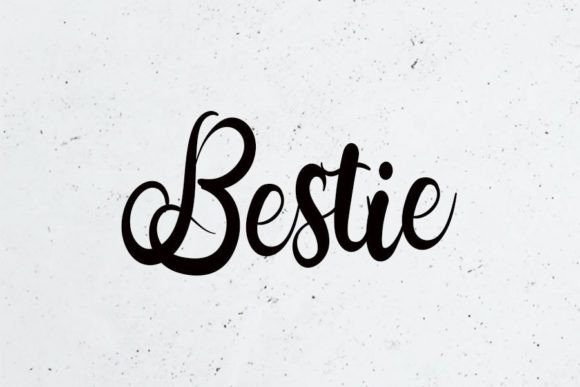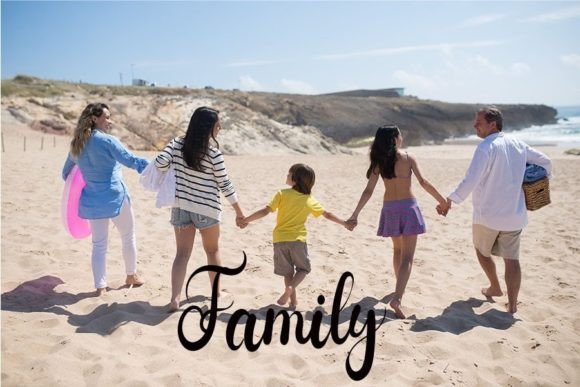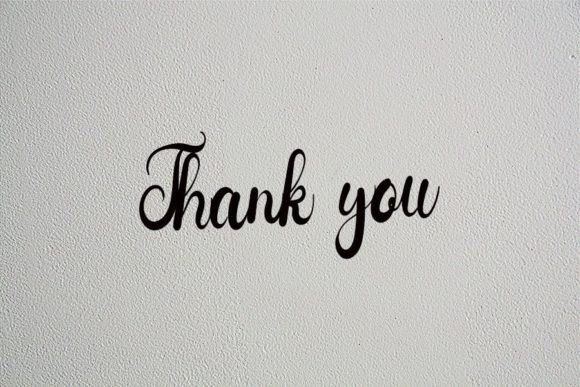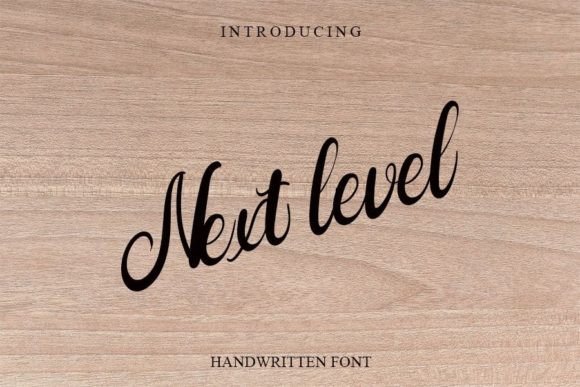
Introduction to Next Level Font
Next level is a modern handwritten font.
This font looks natural, stylish, and perfect for any extraordinary project that requires a handwritten feel Its versatile style looks lovely on wedding invitations, thank you cards, quotes, greeting cards, logos, business cards, and every other design which needs a customized touch.